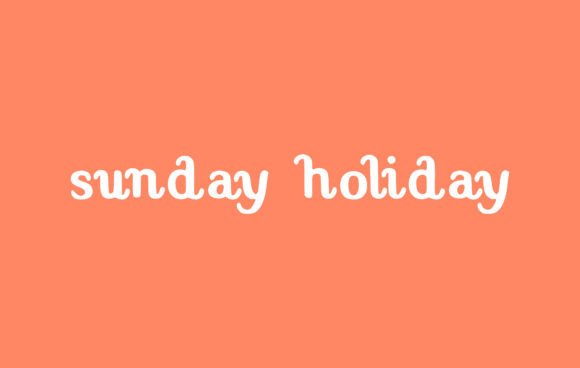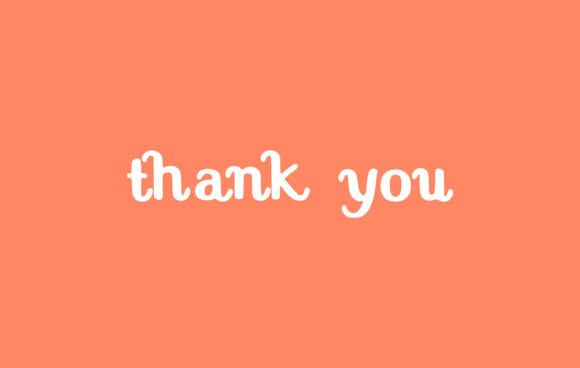
Introduction to Skylark Font
As a designer, there’s nothing quite like the thrill of bringing a creative project to life. The moment you hit ‘save’ on a new logo design, or the way a client’s face lights up when they see your branding concept – it’s a rush like no other. And for those special moments, you need a font that’s just as special. That’s where the Skylark Font comes in – a timeless beauty that adds a touch of magic to any design.
With its unique and beautiful lettering, the Skylark Font is the perfect choice for creating eye-catching logos, branding, and quotes that truly stand out. Whether you’re working on a free download or a high-stakes commercial project, this versatile font is sure to make your designs shine. Plus, its transparent background makes it easy to layer with other design elements for a seamless look.
As a valuable resource for designers, the Skylark Font is a game-changer. Its high-quality design makes it a staple in any design toolkit, and its timeless style ensures it will remain a popular choice for years to come.
Key Features of Skylark Font
- High-quality design resource with a modern and elegant feel, perfect for creative projects.
- Unique characteristics include a clean and minimalist aesthetic, making it ideal for branding, logos, and typography-based designs.
Honest Review: Skylark Font
As a designer, I’m always on the lookout for high-quality design resources to elevate my creative projects. Recently, I stumbled upon the Skylark Font, and I’m excited to share my honest review with you.
- High-quality typography: The Skylark Font boasts beautiful, modern lettering that’s perfect for a variety of design projects.
- Limited character set: The font’s character set is relatively small, which may limit its use in certain design projects.
- Not ideal for large body text: While the font looks great for headings and titles, it may not be the best choice for large blocks of body text.
Overall, I’m impressed with the Skylark Font’s potential as a design resource. While it may have some limitations, its high-quality typography and free download make it an excellent choice for many creative projects. I’d definitely recommend it to fellow designers looking for a modern, stylish font.
The Skylark Font is commonly used for creative projects such as wedding invitations, business cards, and brochures. Its elegant design and transparent background make it perfect for layering and combining with other design elements.
To get the most out of the Skylark Font, use it in conjunction with a transparent background to create a layered and textured design. Experiment with different font sizes and colors to add depth and interest to your design. With its high-quality design and versatility, the Skylark Font is a valuable design resource for any creative project.